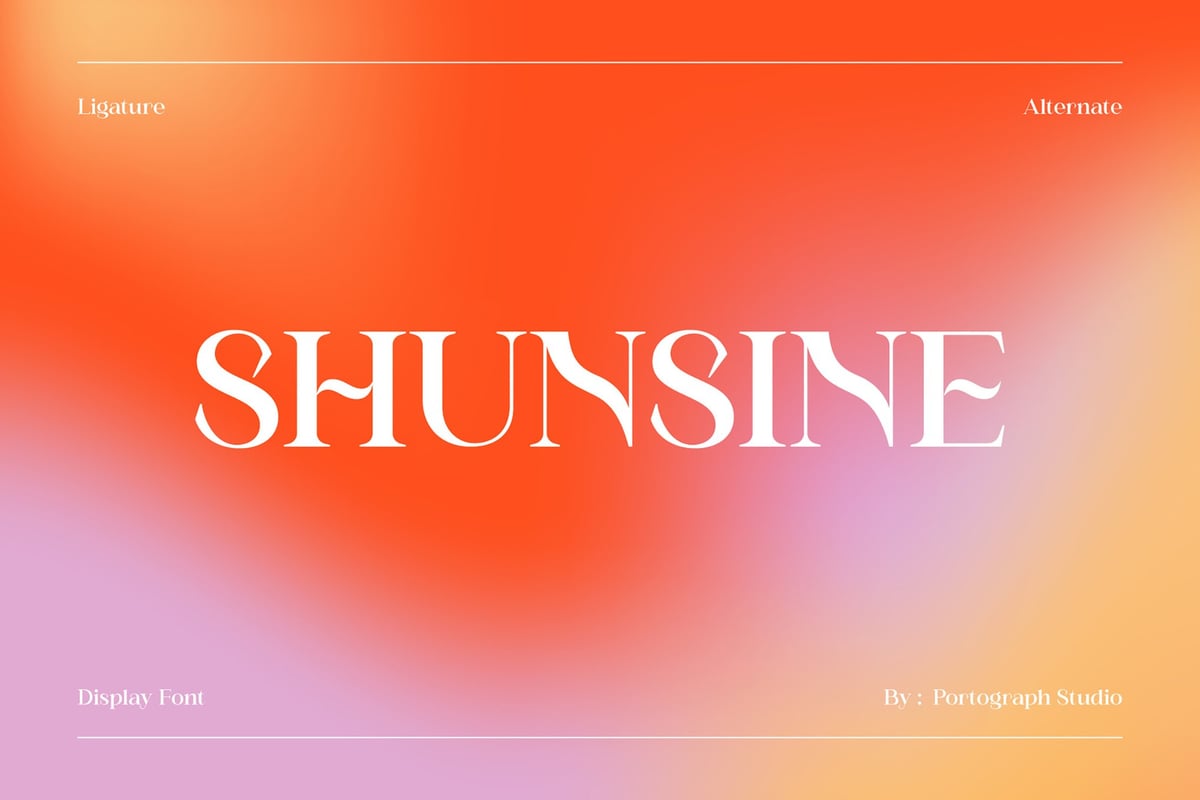
Shunsine – Luxury Font
Elevate your designs with Shunsine, a modern elegant display serif font that radiates luxury and sophistication. This refined typeface features graceful ligatures and stylish alternates, making it the perfect choice for high-end branding projects, fashion editorials, beauty products, distinctive logos, eye-catching posters, and premium social media designs. Package includes: OTF format TTF format WOFF2 format Features: Uppercase characters Lowercase characters Elegant ligatures Compl...